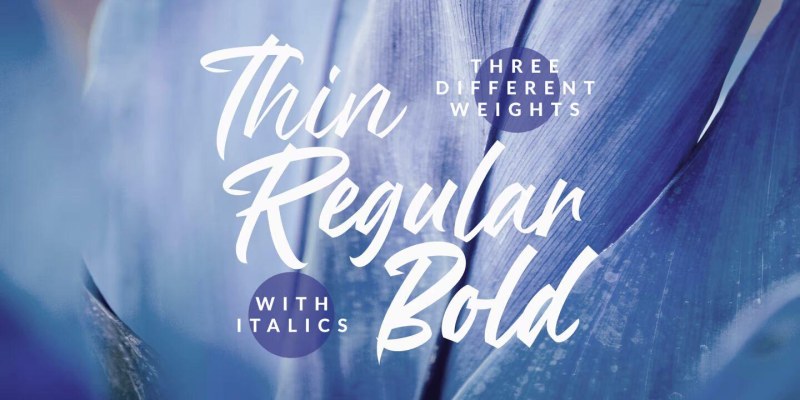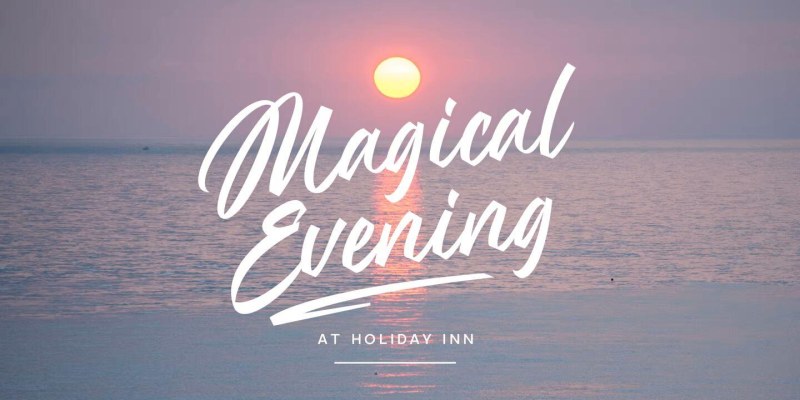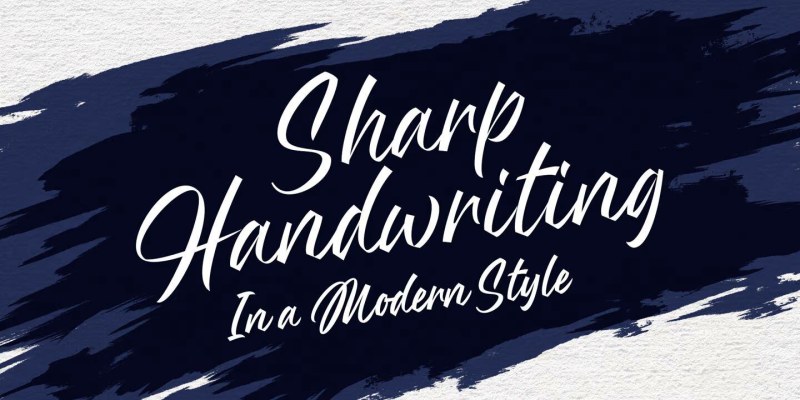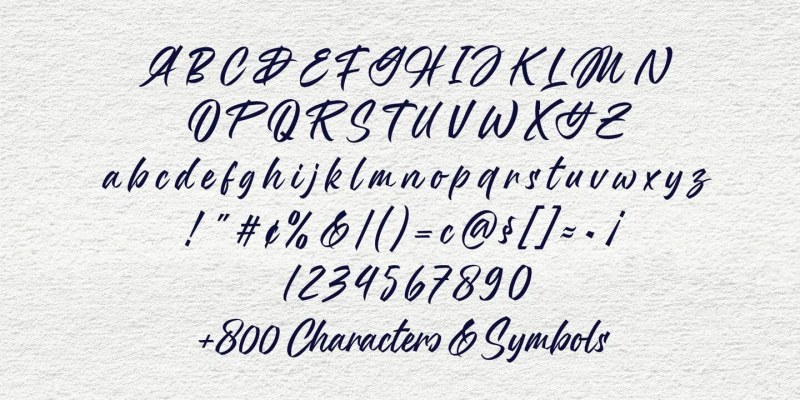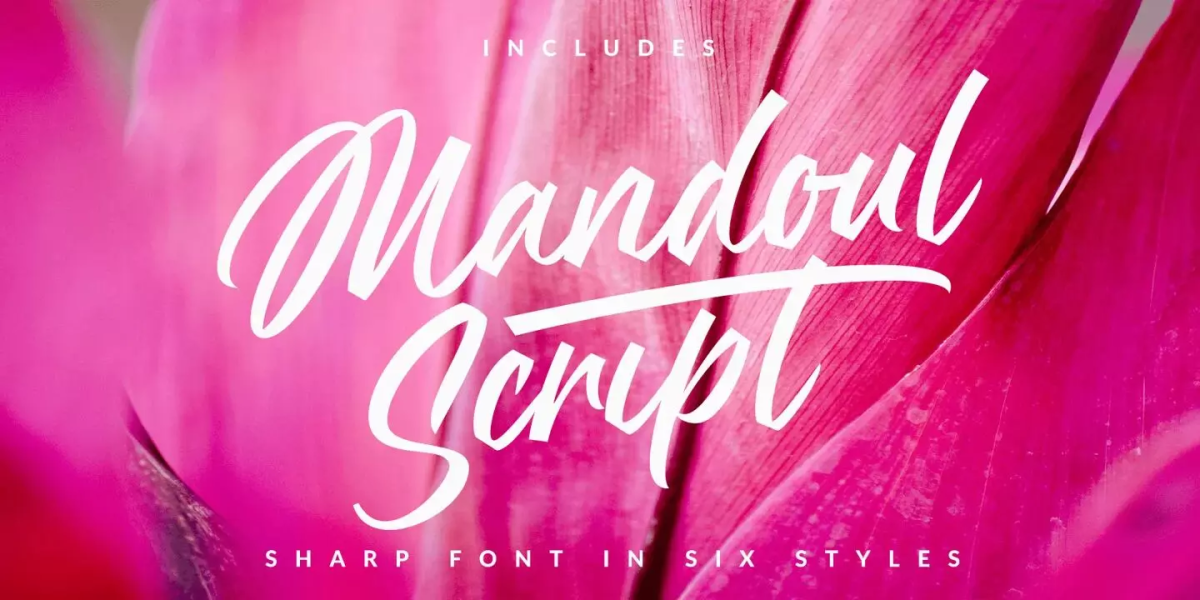
Mandoul Script Font
Mandoul Script is a sharp, active calligraphy typeface. With extra attention to quick letterforms and sharp details, this modern typeface turns any graphic project into…
Mandoul Script is a sharp, active calligraphy typeface. With extra attention to quick letterforms and sharp details, this modern typeface turns any graphic project into a strong and confident work. It is provided in six styles, and three thicknesses: Thin, Regular and Bold, and each weight as Italic. Mandoul is built with advanced OpenType functionality and has a guaranteed top-notch quality, containing stylistic and contextual alternates, ligatures and more features; all to give you full control and customizability. It has extensive lingual support, covering all Latin-based languages, from North Europe to South Africa, from America to South-East Asia. It contains all characters and symbols you’ll ever need, including all punctuation and numbers.